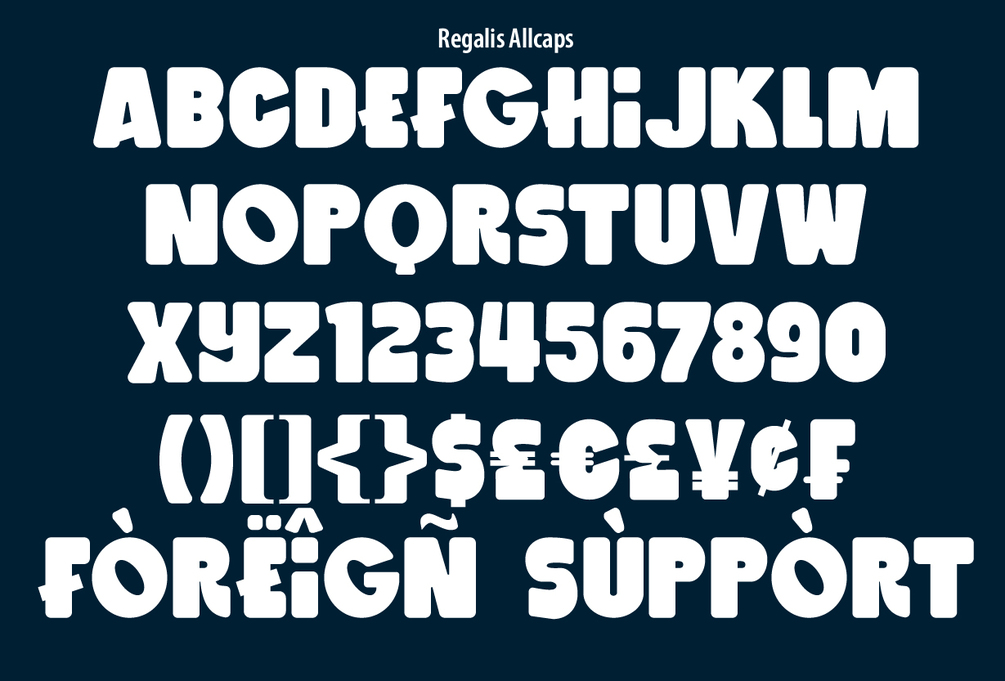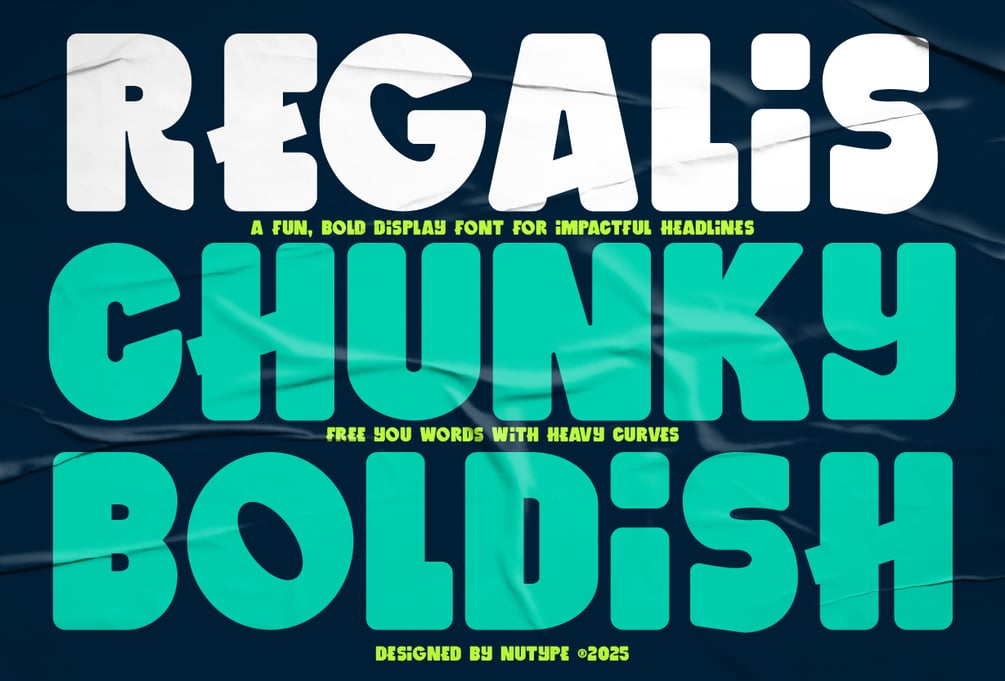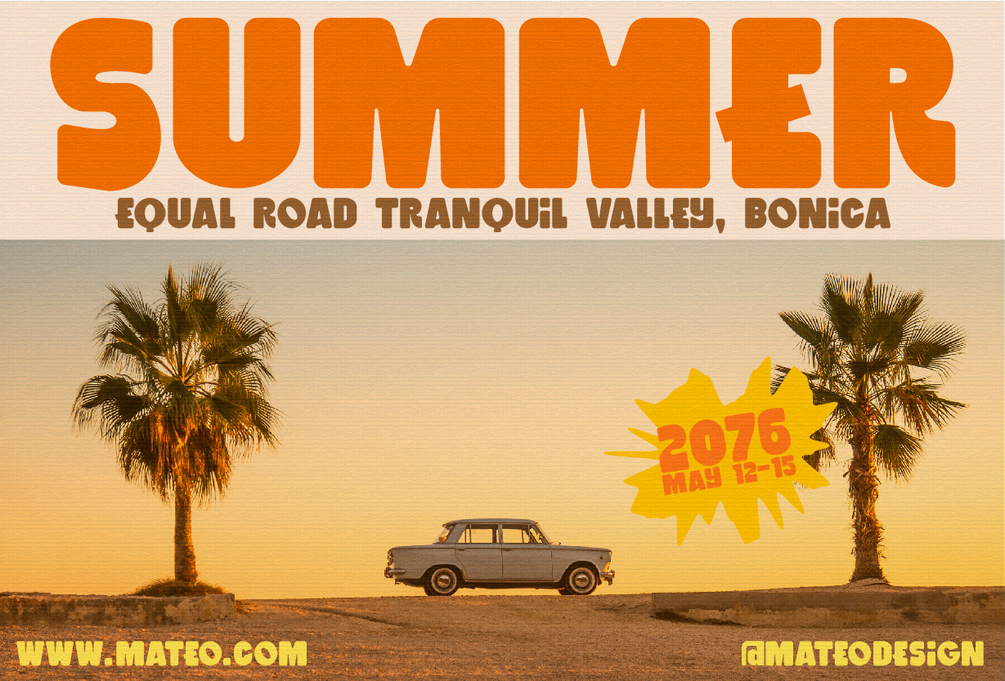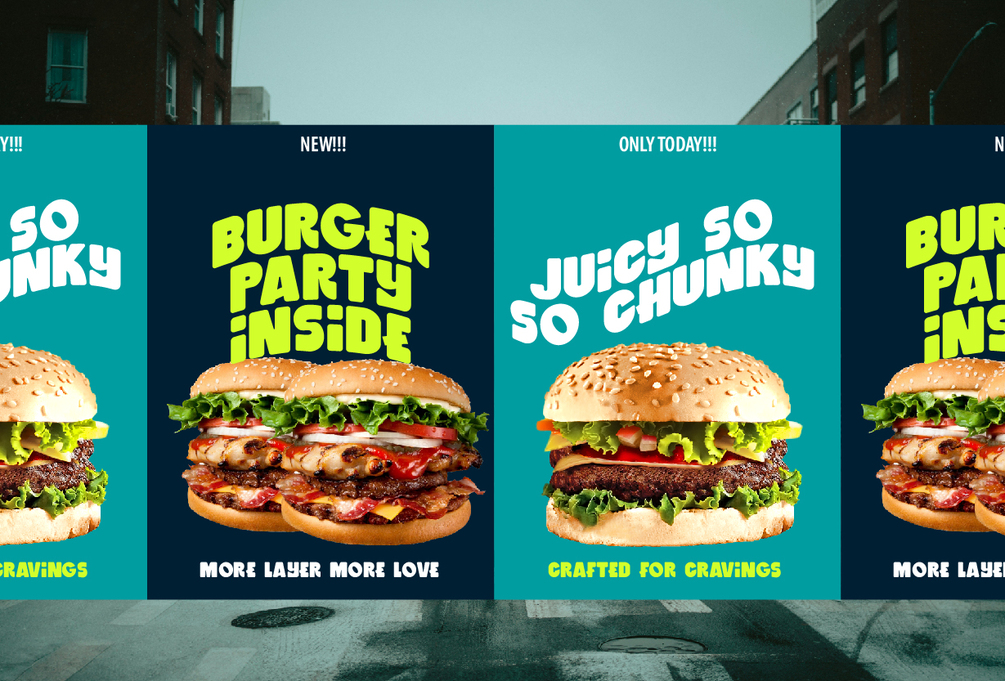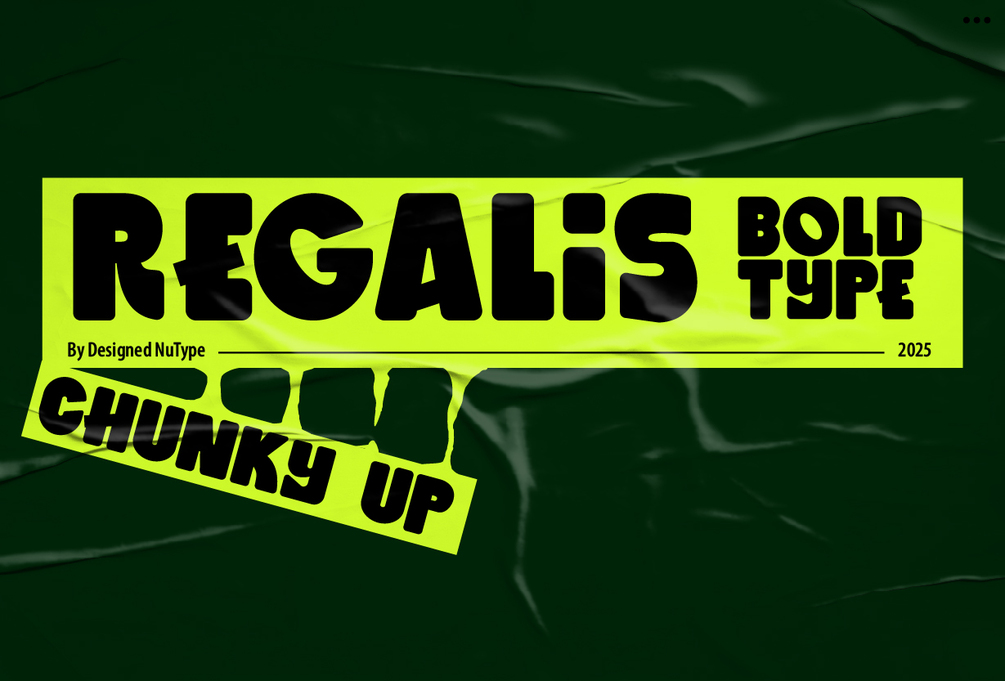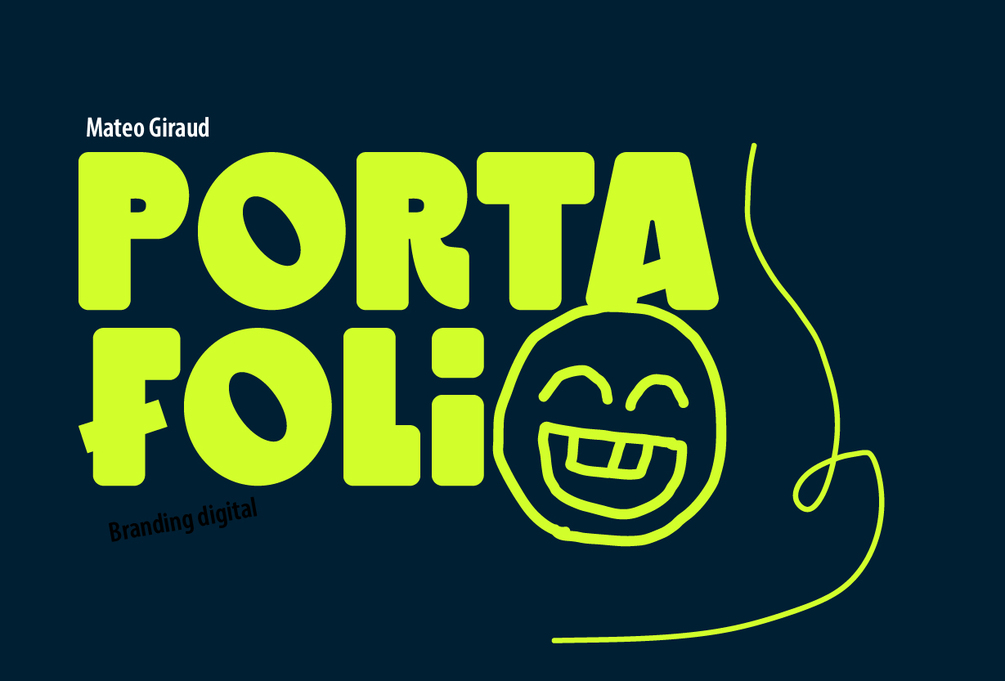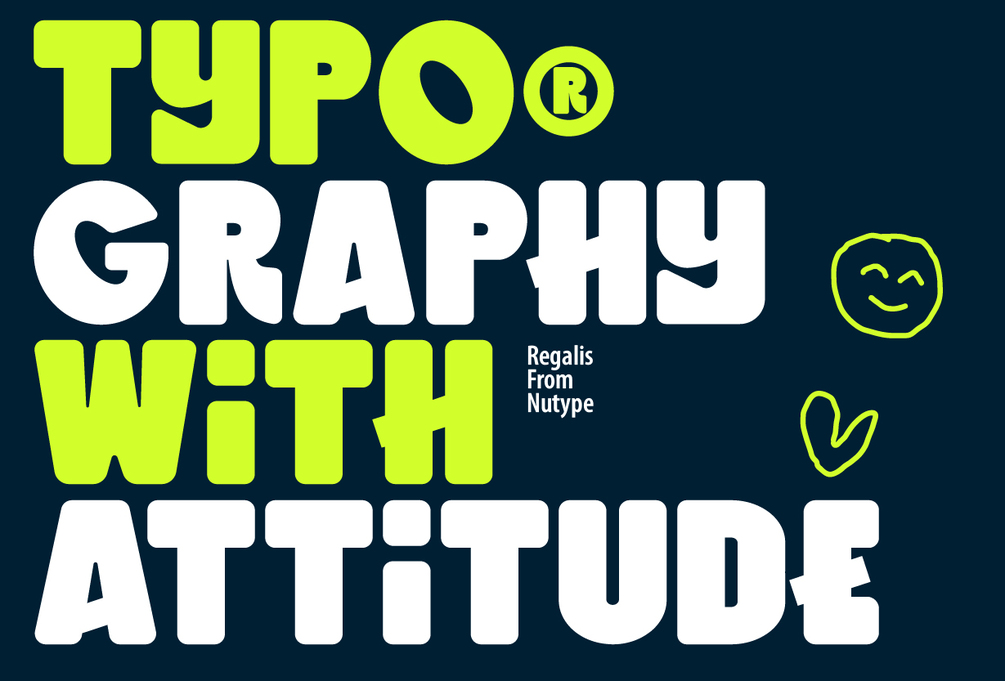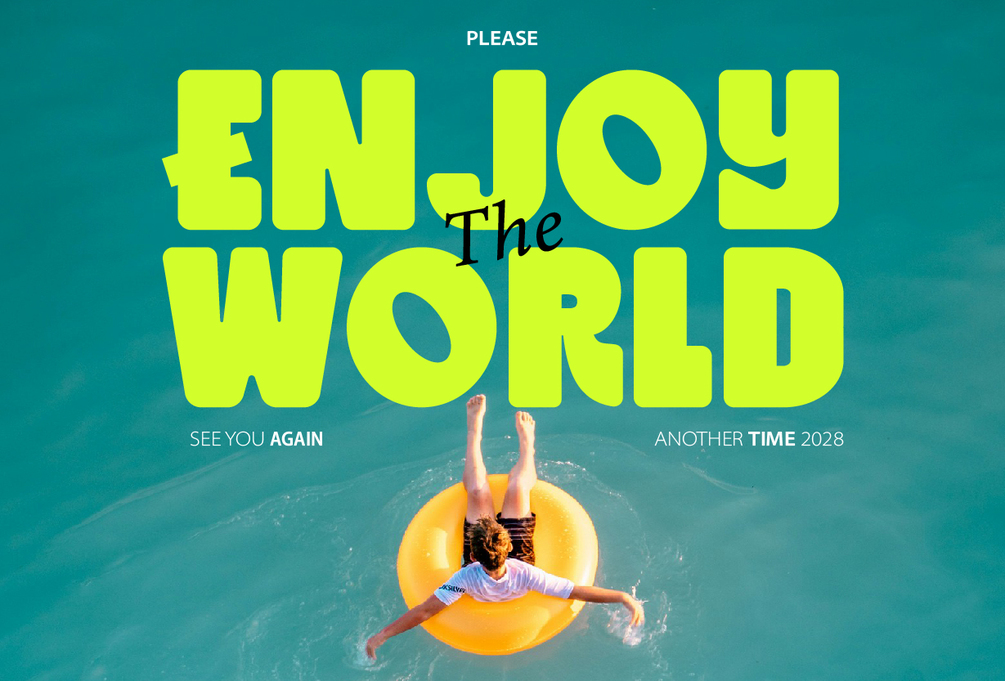
Regalis - Chunky Bold Type
Regalis is a bold and confident sans serif typeface that echoes the timeless presence of London’s most iconic landmark. With strong vertical strokes, clean edges, and a balanced geometric form, this font is perfect for making statements that stand tall — just like the tower itself.
Whether you're designing editorial headlines, signage, branding, or travel posters, this font delivers clarity, power, and a modern classic feel. Each letter is crafted with simplicity in mind, yet carries enough character to stand out in any layout.
• Uppercase
• Numbers & punctuation
• Multilingual support
• Smooth curves & sharp lines
• Editorial layouts
• Poster design